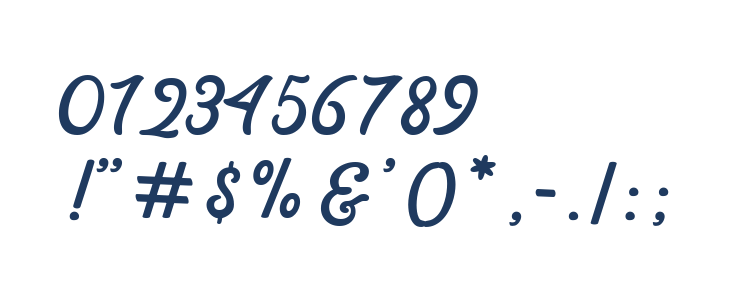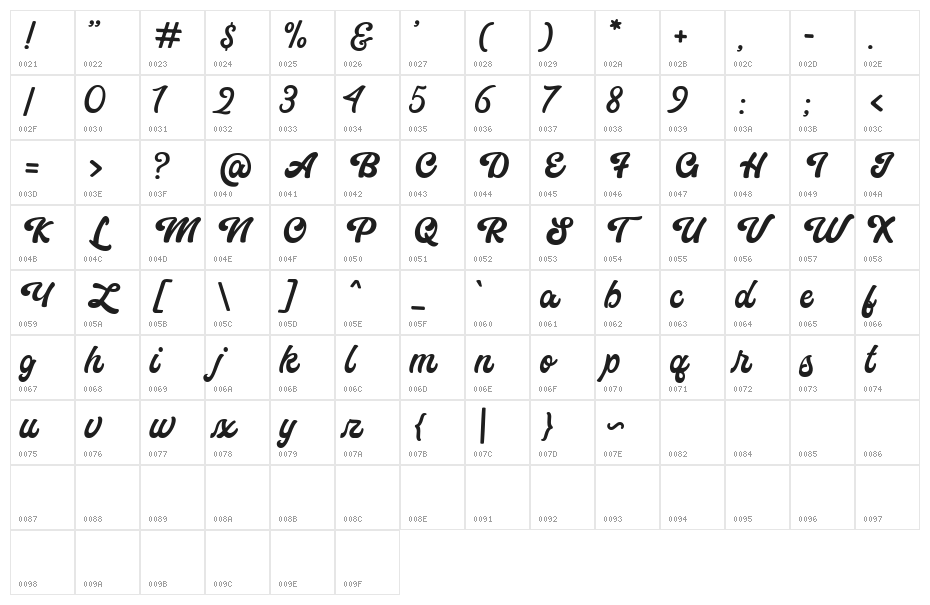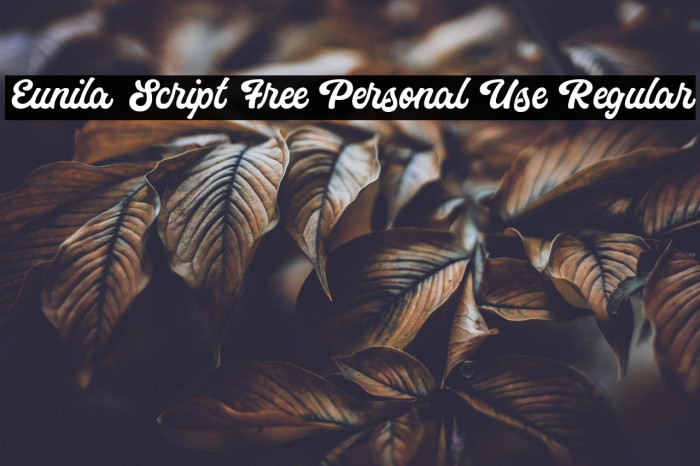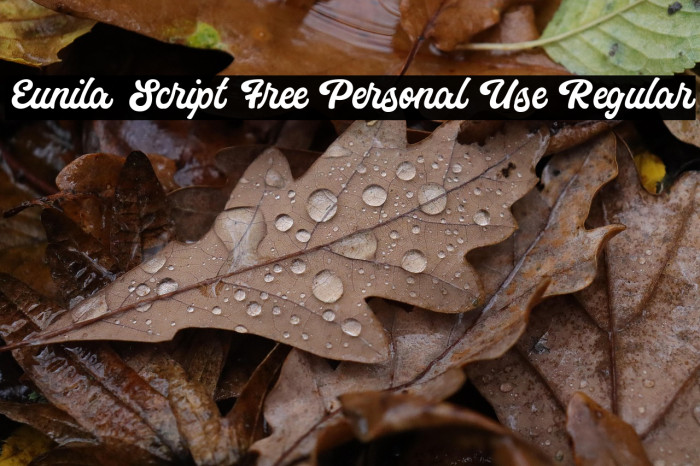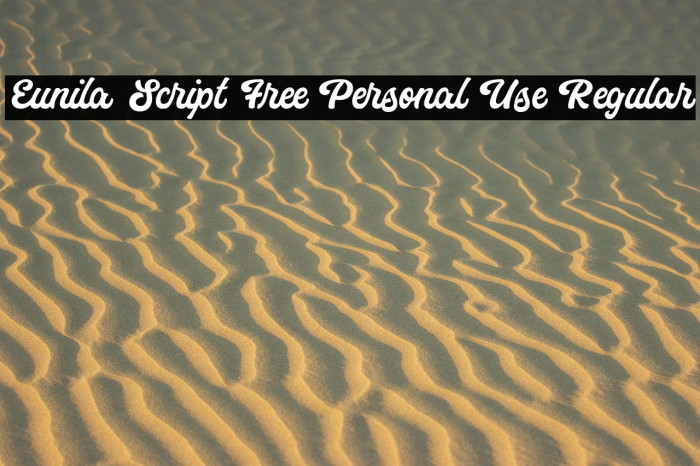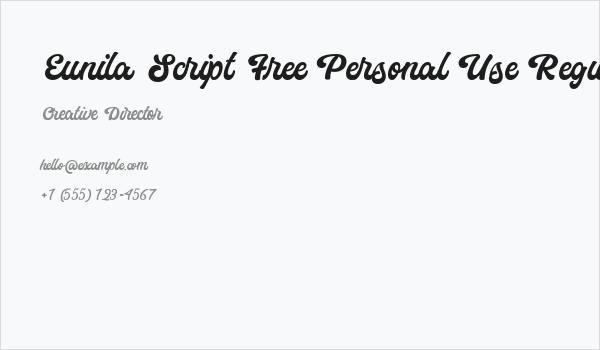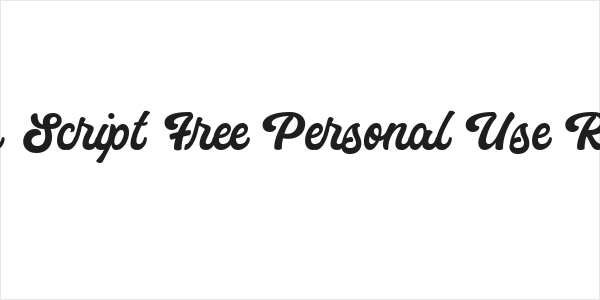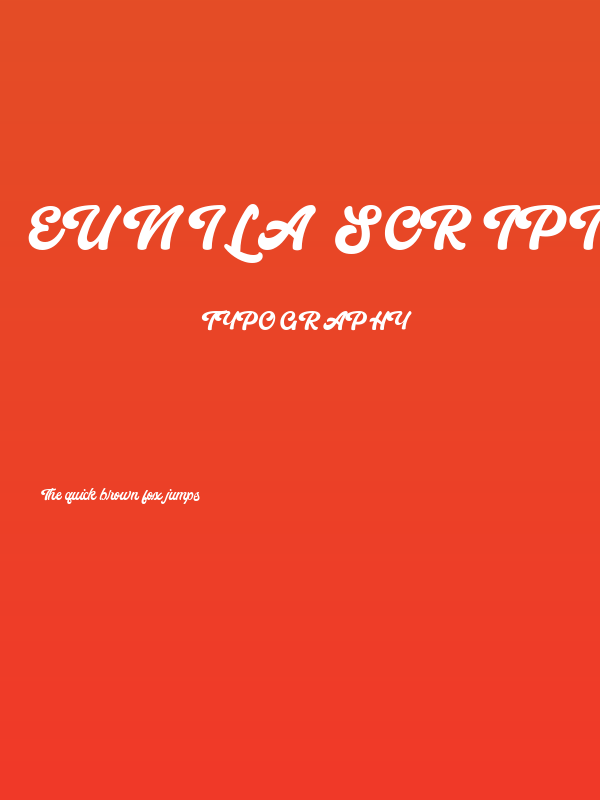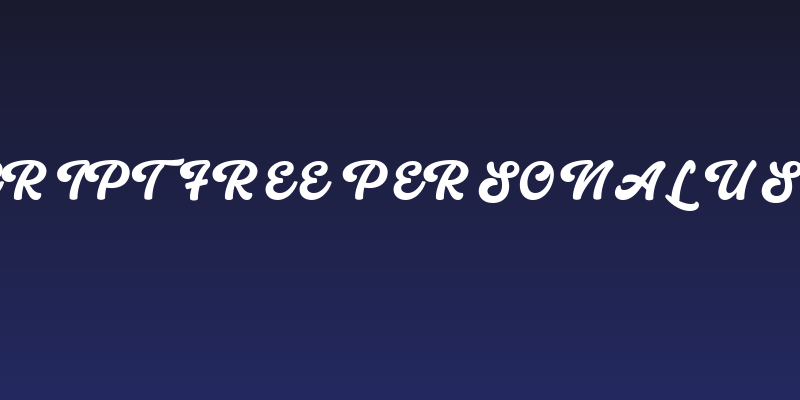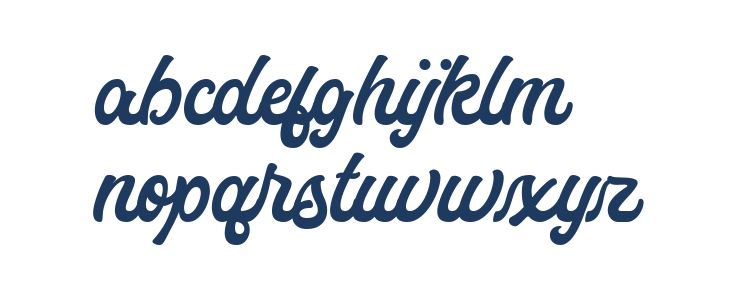
Eunila Script Free Personal Use Regular Font
Eunila Script Free Personal Use Regular Description
This font features a flowing, cursive style with smooth, rounded edges and a consistent stroke width that gives it a harmonious and elegant appearance. The uppercase letters are slightly more ornate, with subtle flourishes that add a touch of sophistication. The lowercase letters maintain a uniform height, contributing to a cohesive look. The numerals are well-integrated, matching the overall script style, while the special characters are designed to complement the letters seamlessly. This font exudes a sense of warmth and friendliness, making it suitable for a variety of creative applications.
| Overall Style | Elegant |
| Use Case | Logos, Invitations, Decorative text |
| Proposed Projects | Ideal for wedding invitations, greeting cards, personal branding, and decorative projects. |